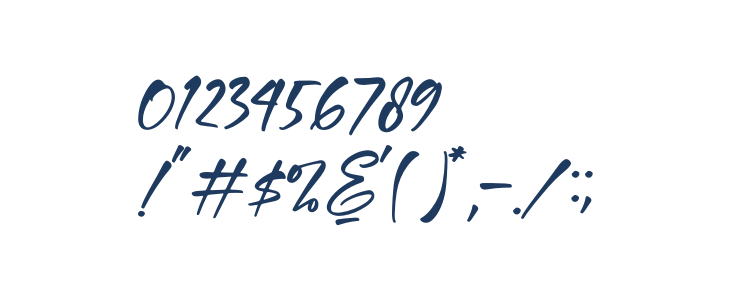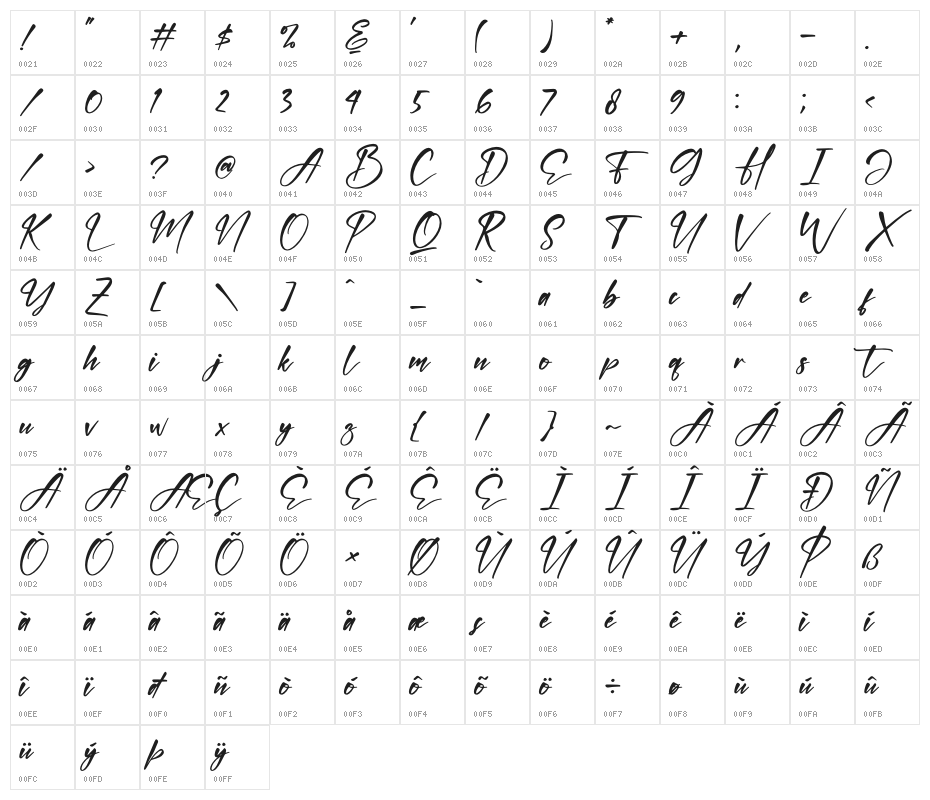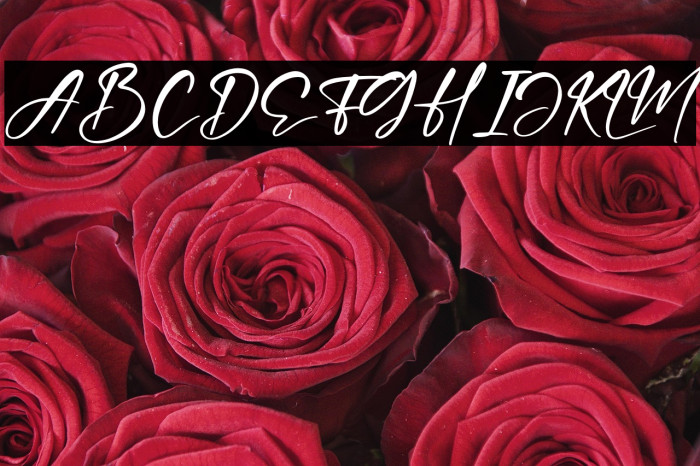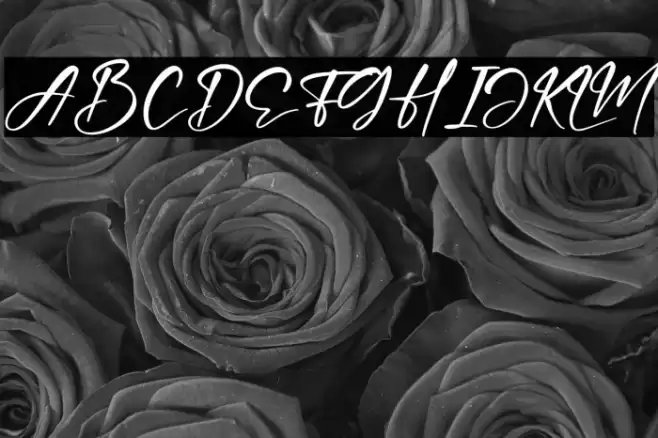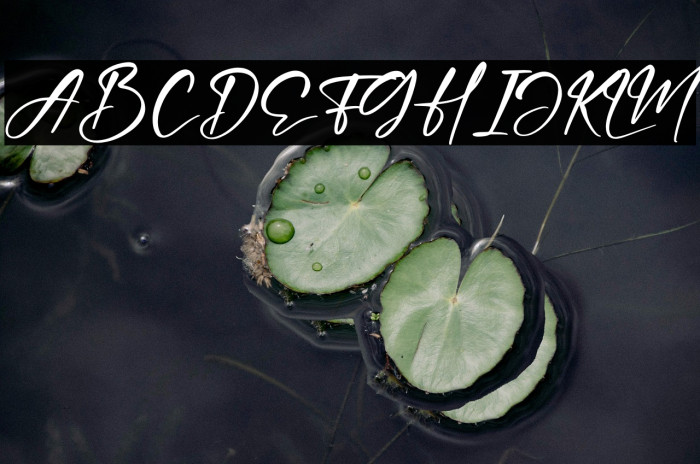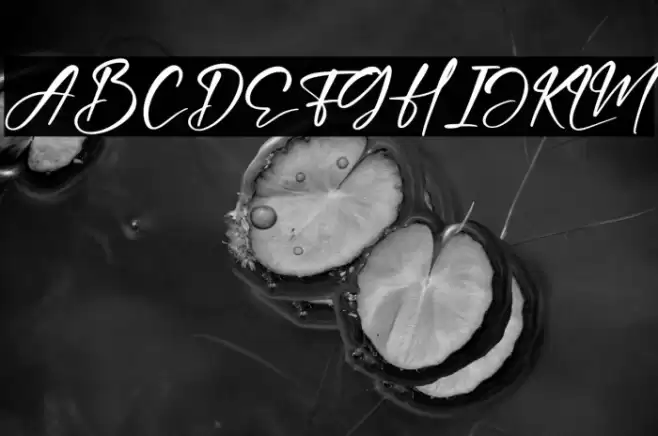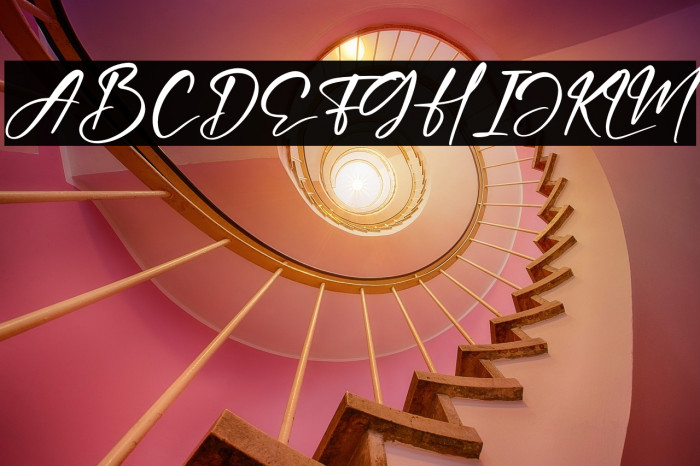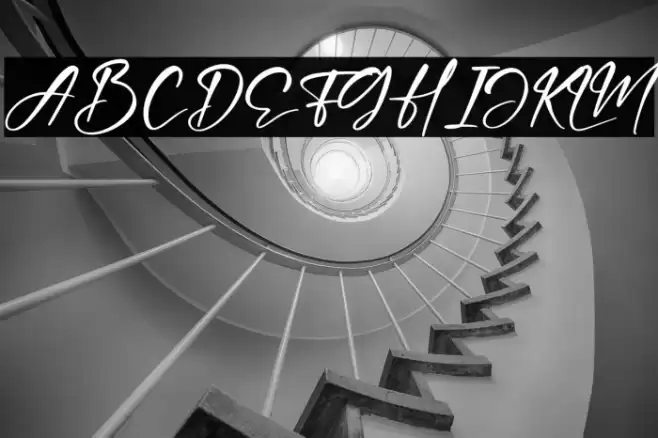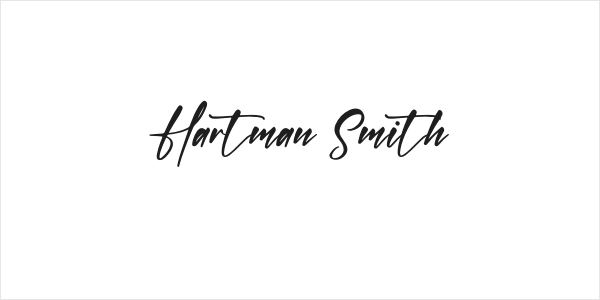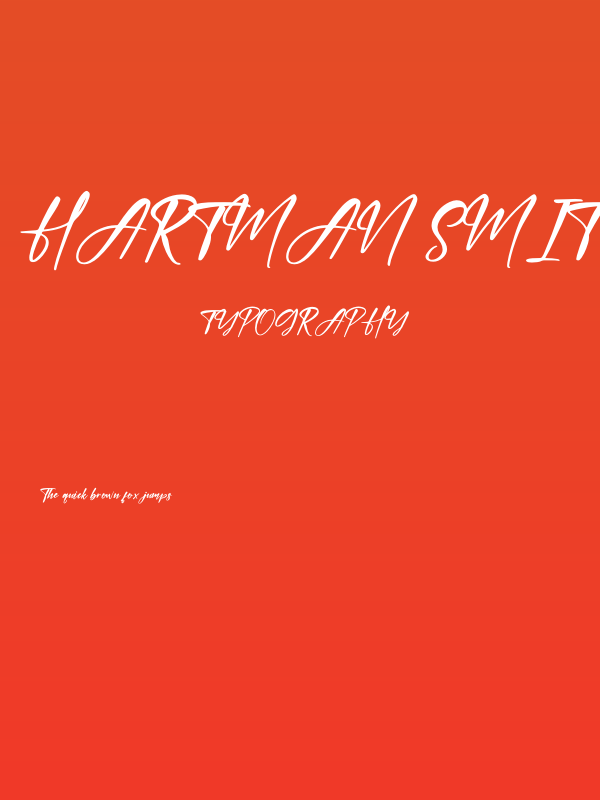
Hartman Smith Font
Hartman Smith Description
This font exudes a dynamic and expressive style, characterized by its fluid, cursive script that mimics natural handwriting. The letters are elegantly connected, creating a seamless flow that is both artistic and sophisticated. The uppercase letters are slightly more elaborate, with sweeping curves and loops, while the lowercase letters maintain a consistent rhythm and balance. The numerals and special characters are crafted with the same attention to detail, ensuring a cohesive look across all elements. This font's bold strokes and varying line thicknesses add a touch of drama and flair, making it stand out in any design.
| Proposed Projects | Ideal for wedding invitations, branding projects, greeting cards, and artistic posters. |